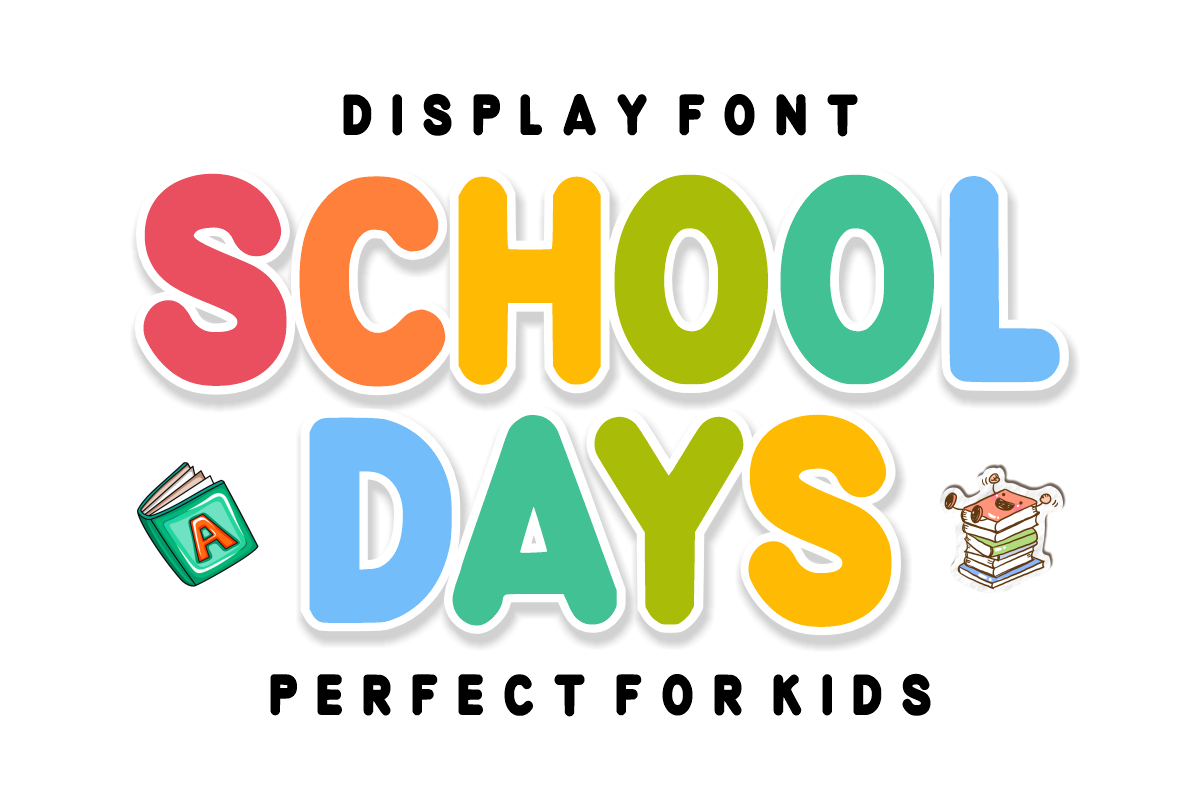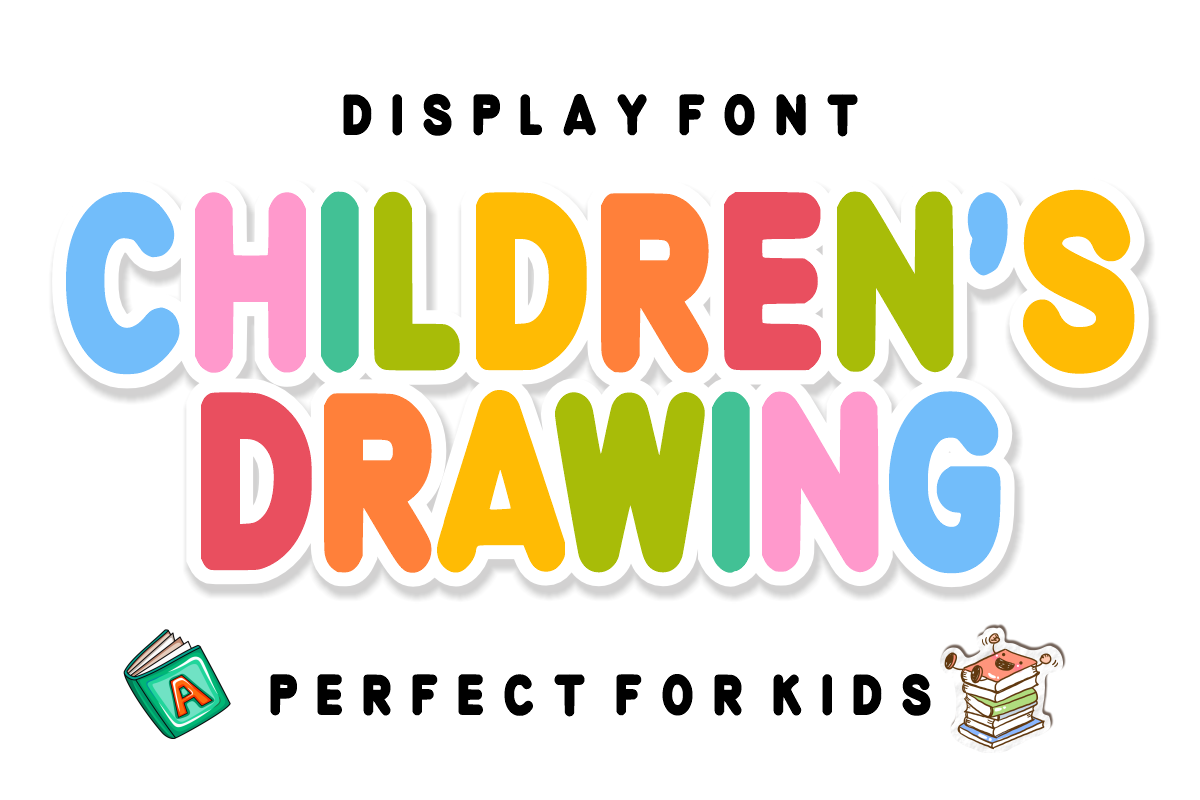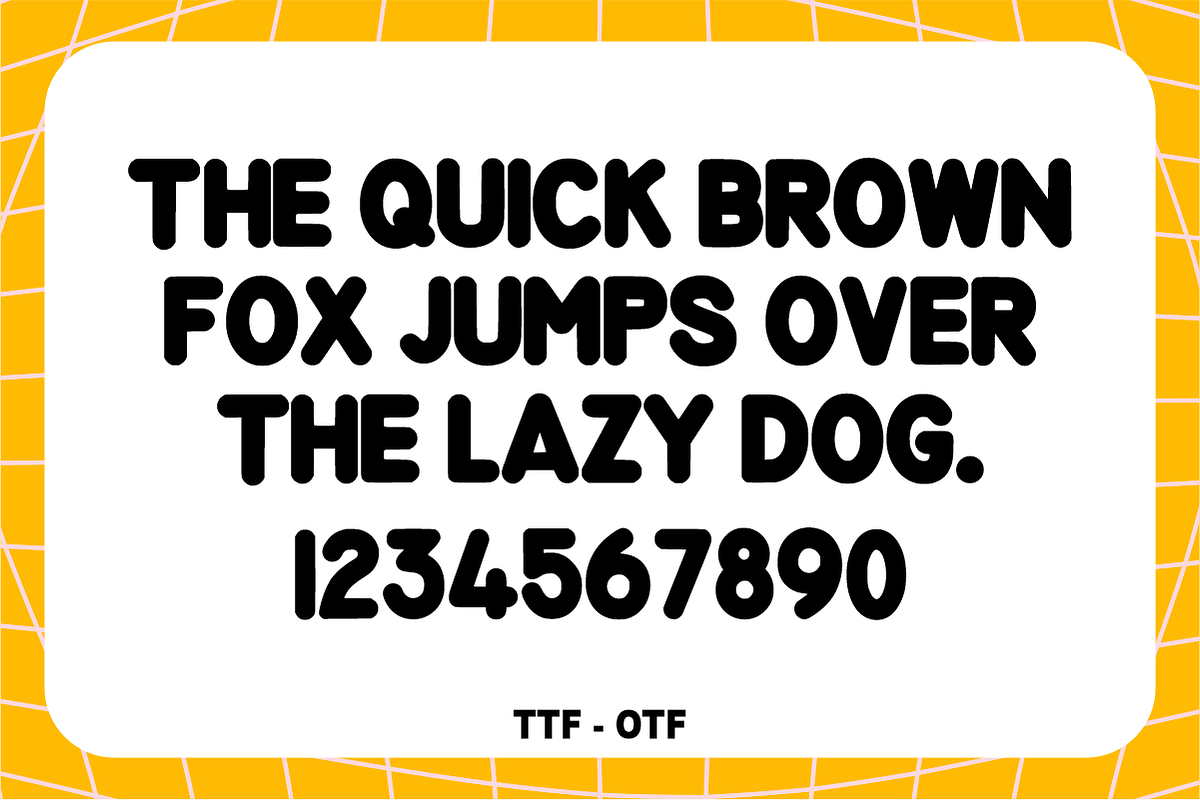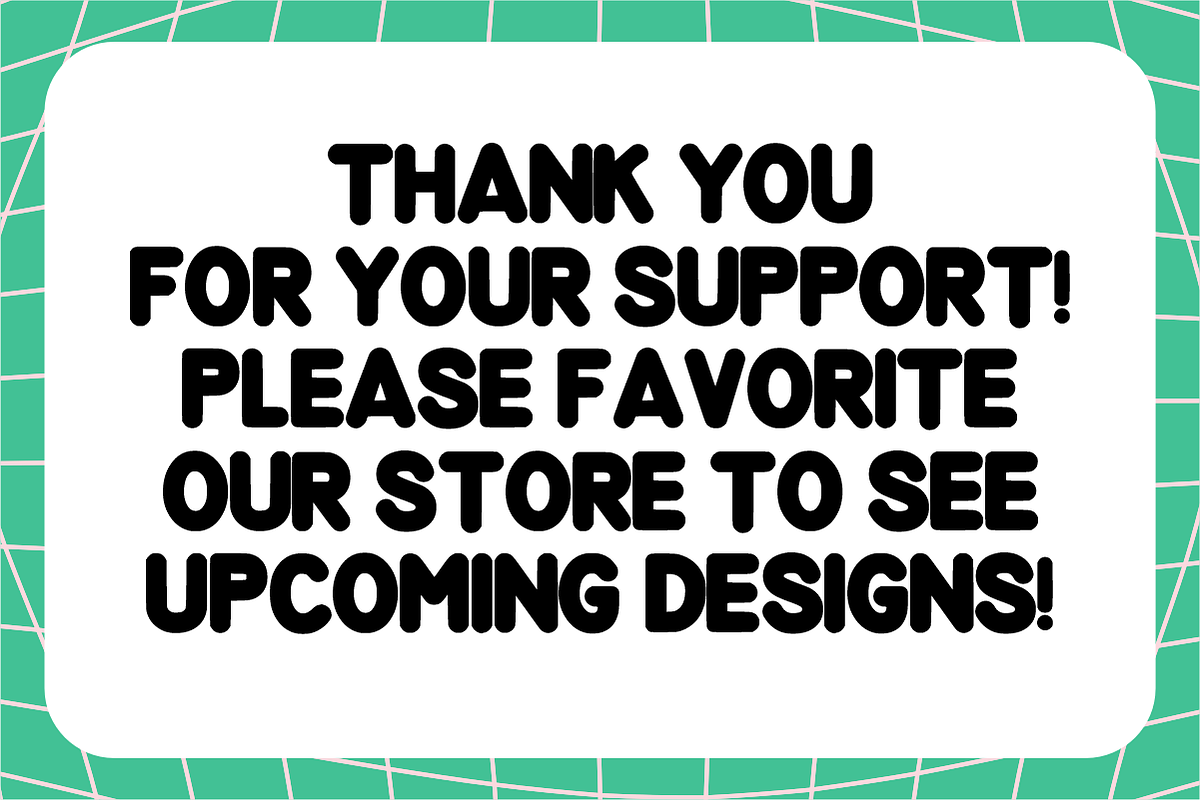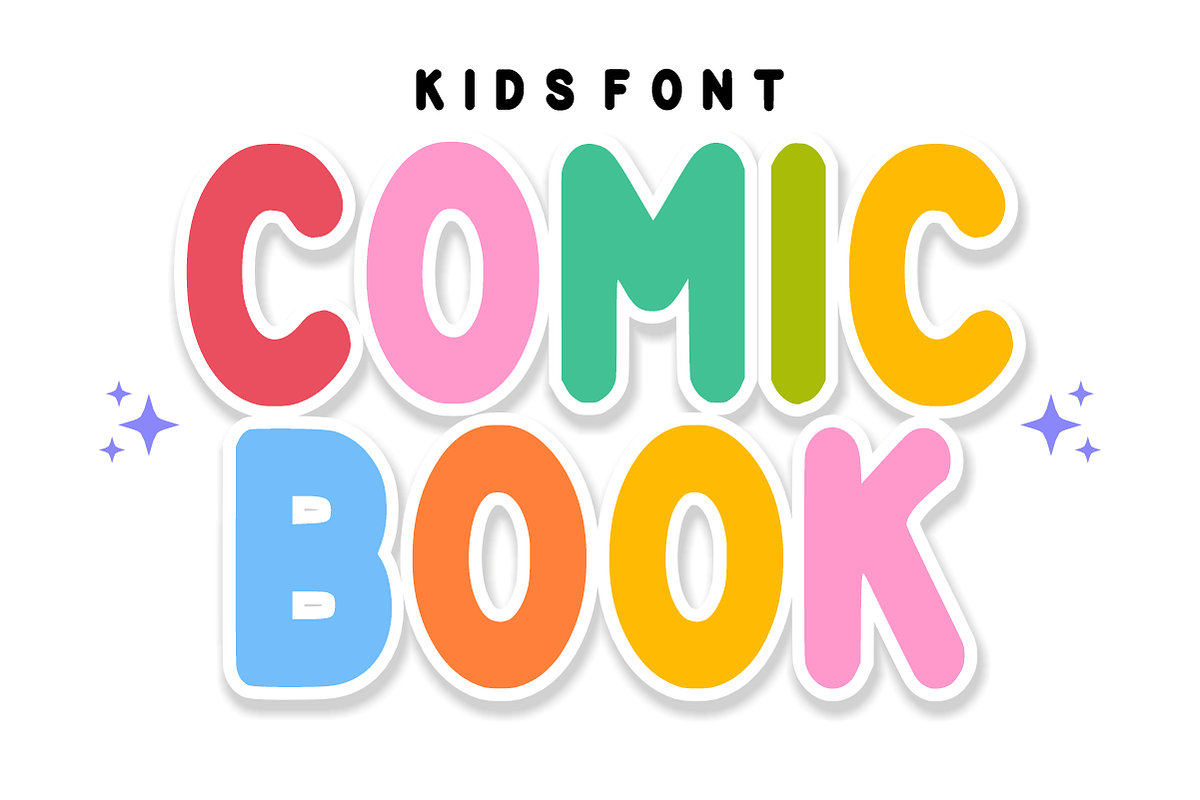
School Days – Playful Display Font
School Days – Playful Bubbly Kids Display Font 🍎✨
Make every lesson a creative adventure!
School Days is a bold, chunky, and delightfully bubbly display font designed to bring a sense of fun and energy to educational and children-themed projects. With its soft, rounded edges and "sticker-like" aesthetic, this font captures the joyful spirit of the classroom while maintaining excellent legibility. It is the perfect choice for designers and teachers who want their headlines to pop with personality and warmth.
🌟 Why School Days is a Classroom Essential:
Playful & Approachable: The thick, organic shapes are specifically designed to appeal to children and parents alike.
High Impact: Its bold silhouette makes it ideal for titles and headers, ensuring your message is clear and engaging.
Versatile Design: Works beautifully with bright colors, pastel palettes, or even as a simple black-and-white outline.
🎨 Perfect For:
🍎 Education & Classroom Decor: Bulletin board headers, personalized name tags, and fun worksheets.
👕 Merchandise & Apparel: Trendy "Teacher Life" t-shirts, kids' hoodies, and custom tote bags.
📱 Social Media & Branding: Eye-catching Instagram quotes, YouTube thumbnails for kids, and playful logo designs.